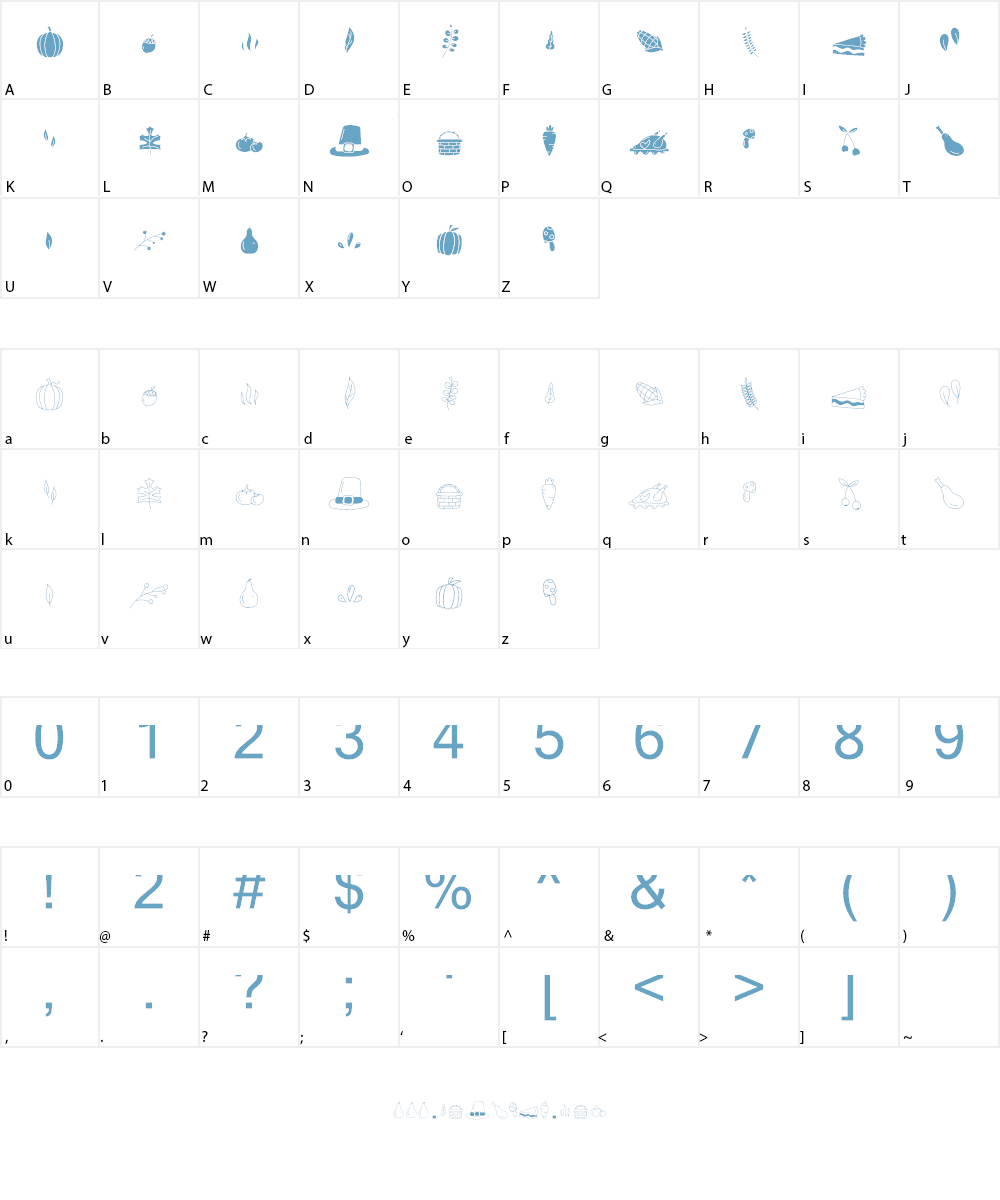
thankful sunday is a handwritten font duo with doodle fonts, its really greats for thanksgiving theme.
This font is perfect for your special moments. Also included are thanksgiving themed doodles to perfectly fit for your designs,